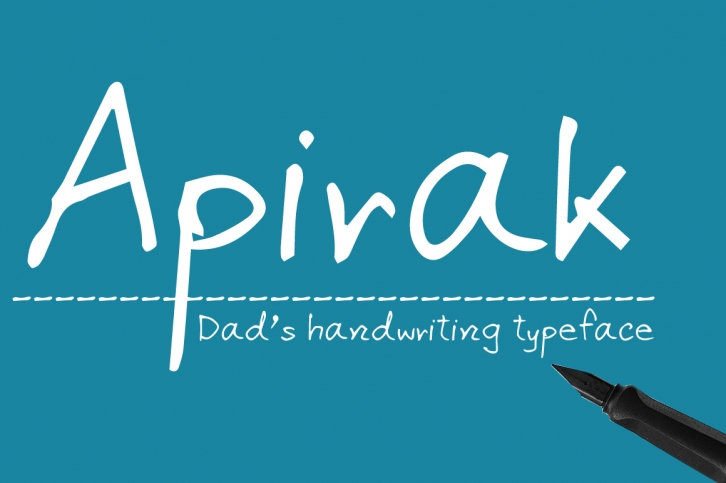
Apirak Handwriting Typeface is a beautiful font that was designed by BECRIS. It's a great choice for designers and creatives who need such a font. It was released on July 24, 2017 and the file size is 2.78 MB. Apirak Handwriting Typeface may give a more youthful, expressive and casual look to your project. It is a very beautiful, refined, elegant, and high-quality font.